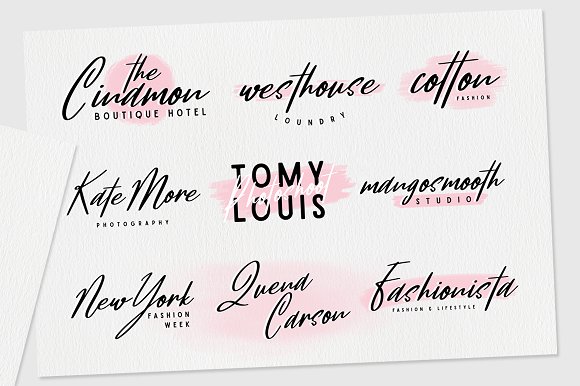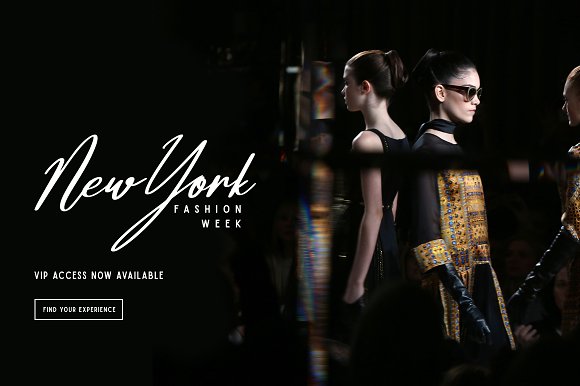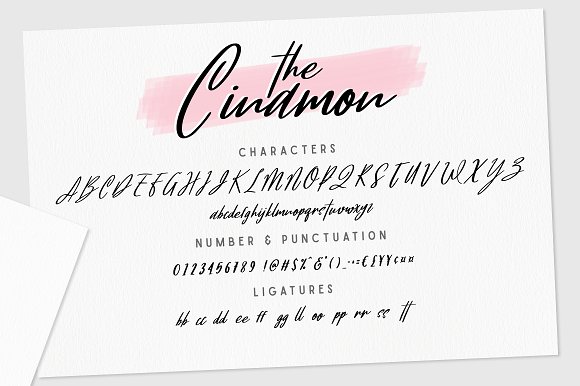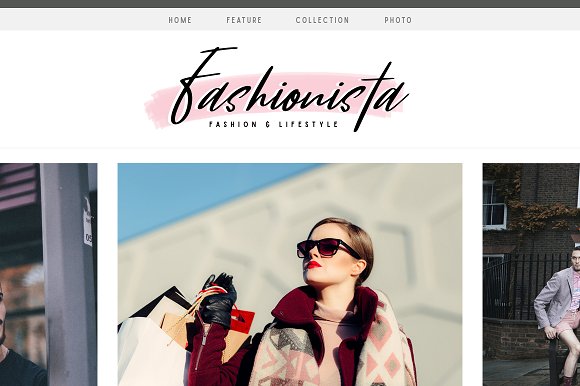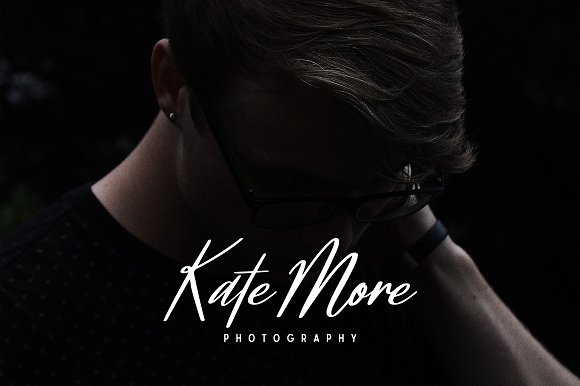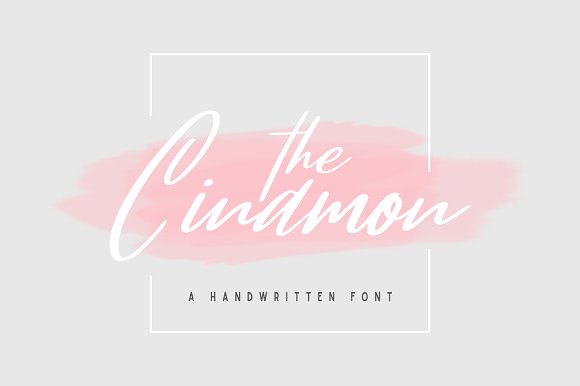
Cinamon Font + Bonus
Hello! I just released new handwritten font called Cinamon.
Cinamon is a handwritten signature font. This font is really easy to use, and is perfect for your branding needs. with this font you can create a feminine logo easily and quickly.